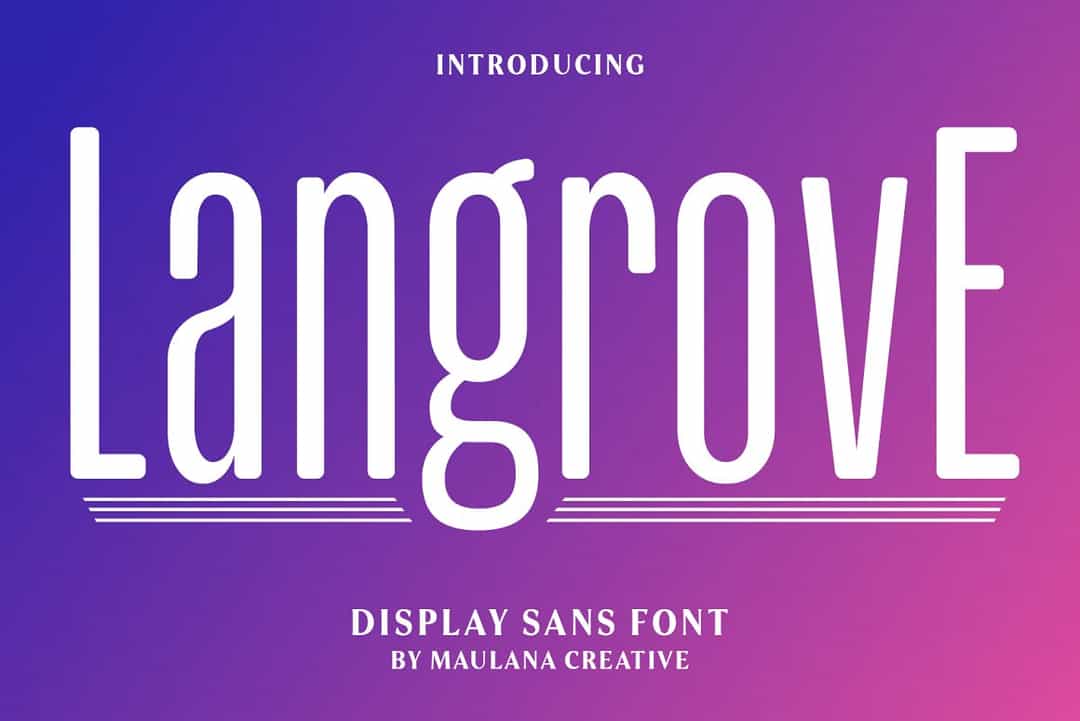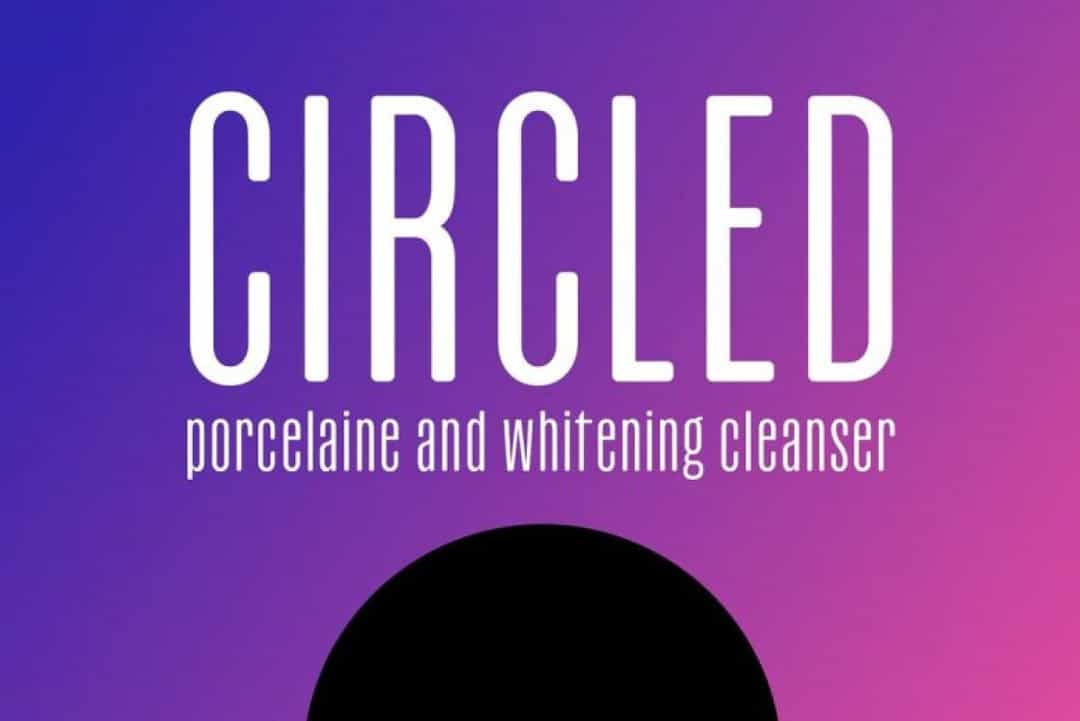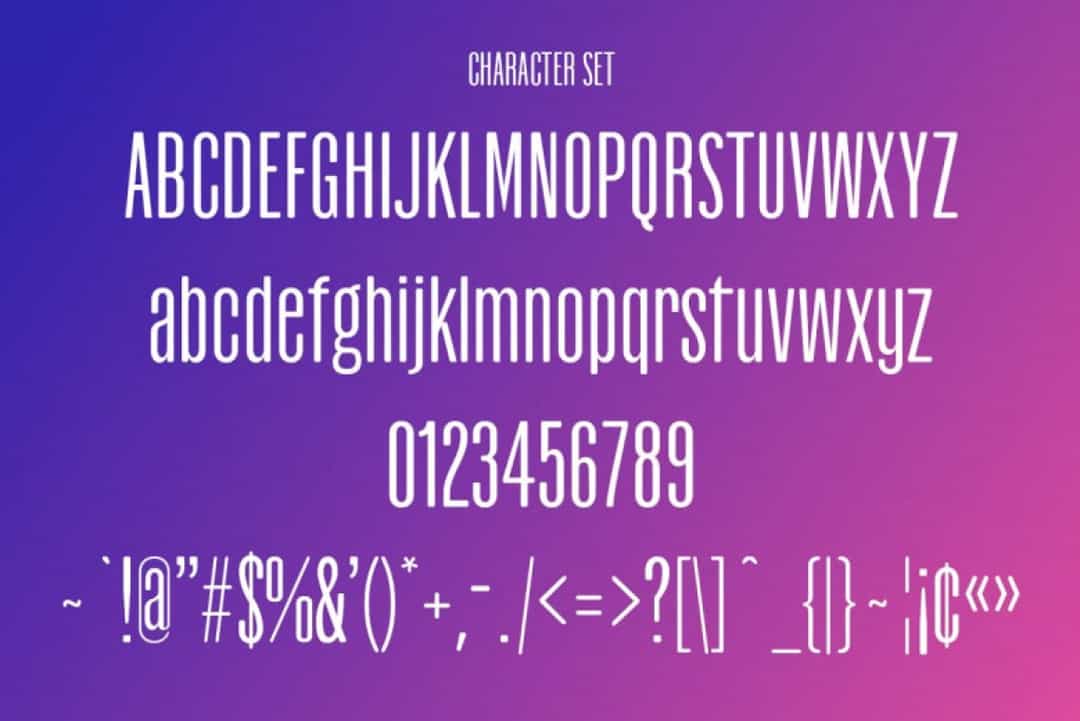
Langrove font is a large display sans serif font with a medium stroke and fun character, featuring alternates and ligatures to support artistic works. Plus it supports over 100 languages!